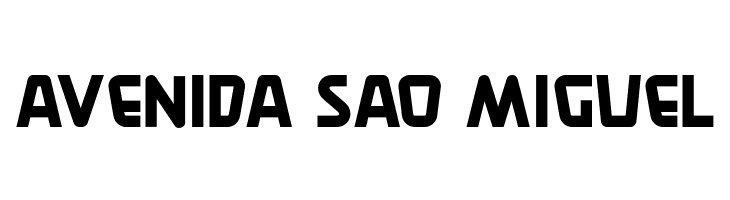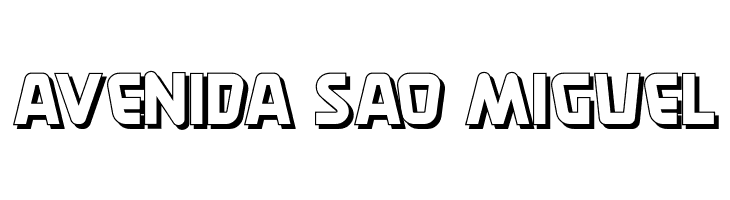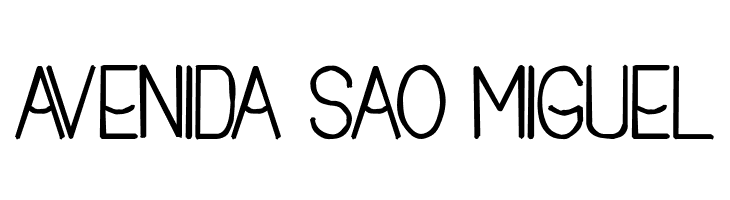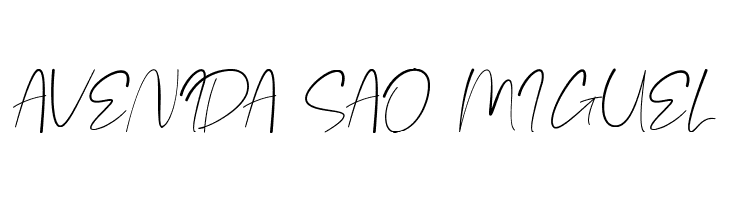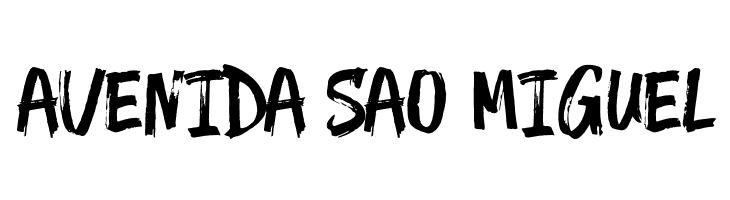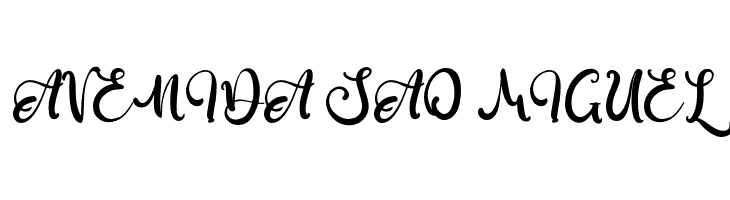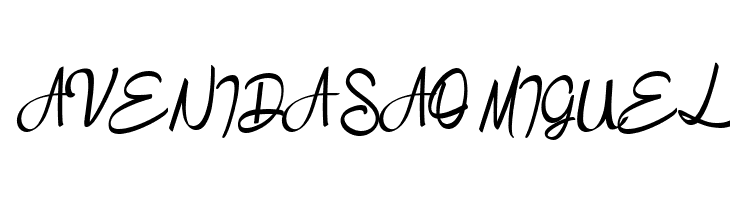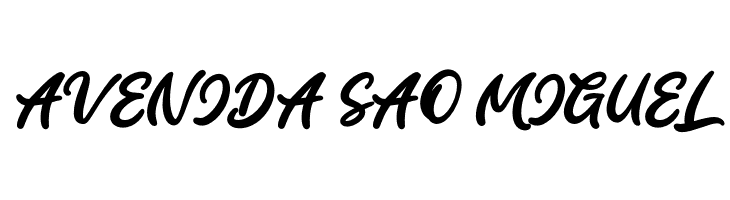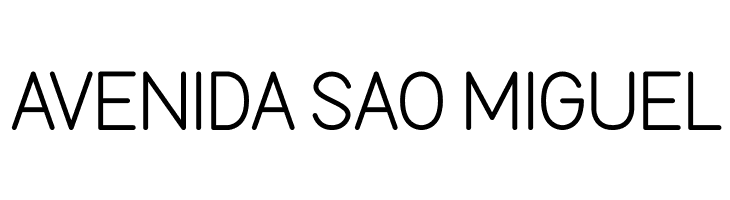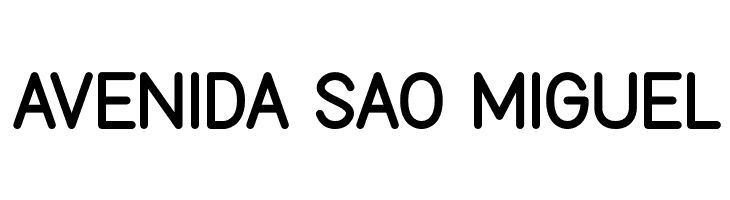
A playful, hand-drawn font with a rough, informal style.
A playful, hand-drawn font with a whimsical and casual style.
A playful, hand-drawn font with a rough, bold style.
A playful, rough, and bold font with a hand-drawn aesthetic.
A playful, rough, and bold italic font with a hand-drawn appearance.
A bold, italic, hand-drawn font with a playful and dynamic style.
A playful, rough, italicized font with a hand-drawn appearance.
A playful, rough, and italicized font with a hand-drawn appearance.
A thin, modern font with clean lines and a cohesive structure.
A thin, modern font with geometric shapes and consistent line thickness.
A sleek, thin, and elegant italic font with a modern and sophisticated style.
A sleek, thin, and italic font with a modern and elegant style.
A bold, flowing script font with dynamic, connected characters.
A bold, expressive script font with fluid, cursive strokes and tight spacing.
A lively, expressive script font with elegant loops and curves.
A decorative cursive font with elegant, flowing letters and ornate flourishes.
A modern sans-serif font with rounded edges and uniform strokes.
A modern, rounded sans-serif font with excellent readability.
A bold, modern sans-serif font with rounded edges and excellent readability.
A modern, rounded sans-serif font with bold weight and excellent readability.
A flowing, elegant script font with a handwritten style.
An ornate and decorative font with intricate swirls and embellishments.
An ornate, decorative font with intricate swirls and embellishments.
A fluid and elegant script font with a handwritten feel.
A bold, expressive brush-style font with dynamic strokes and a hand-painted appearance.
A bold, geometric font with a playful, stencil-like style.
A bold, playful font with a 3D effect and geometric style.
A bold, playful font with exaggerated curves and angles.
A bold, brush-style font with a playful, hand-painted appearance.
A bold, dynamic script font with sweeping curves and dramatic slants.
A bold, playful, hand-drawn font with a cartoonish and energetic style.
A playful, bubble-like outlined font with a bold and whimsical style.
A playful, bold font with a hand-drawn, comic-like style.
A bold, distressed font with a rugged, vintage appearance.
A bold, playful handwritten font with a lively and energetic style.